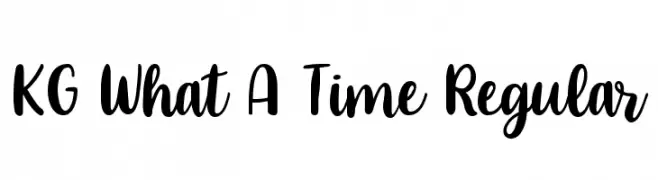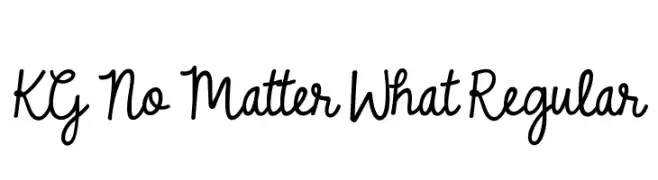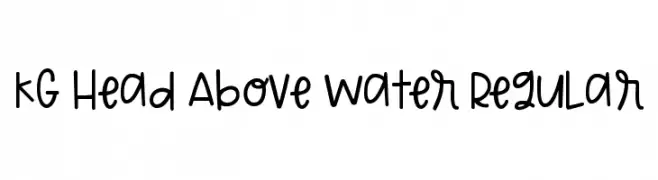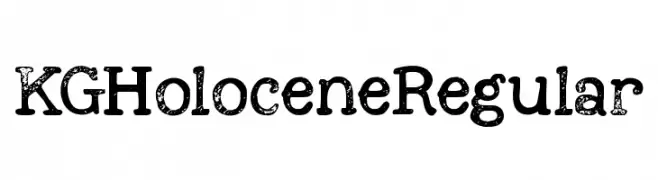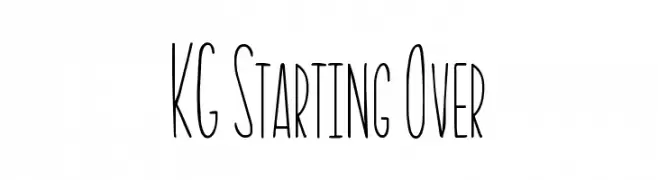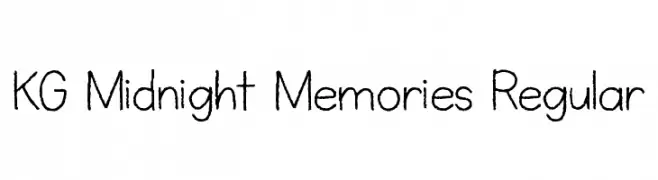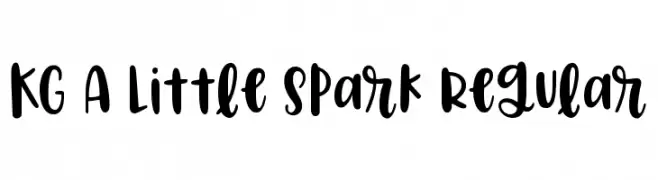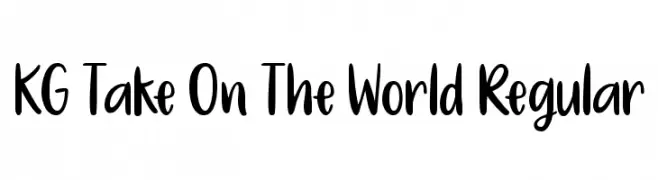
A bold, high-contrast serif font with a modern yet classic appeal.
A bold, playful script font with a handwritten feel and dynamic slant.
A playful, casual handwritten font with fluid, connected letterforms.
A playful, casual handwritten font with smooth, rounded edges.
A bold, textured slab serif font with a vintage, distressed look.
A playful, handwritten font with a casual and dynamic style.
A tall, narrow, and playful font with a hand-drawn feel.
A playful, handwritten font with a casual and natural style.
A playful, bold handwritten font with a whimsical and friendly style.
A playful, handwritten font with bold, rounded letters and a casual style.